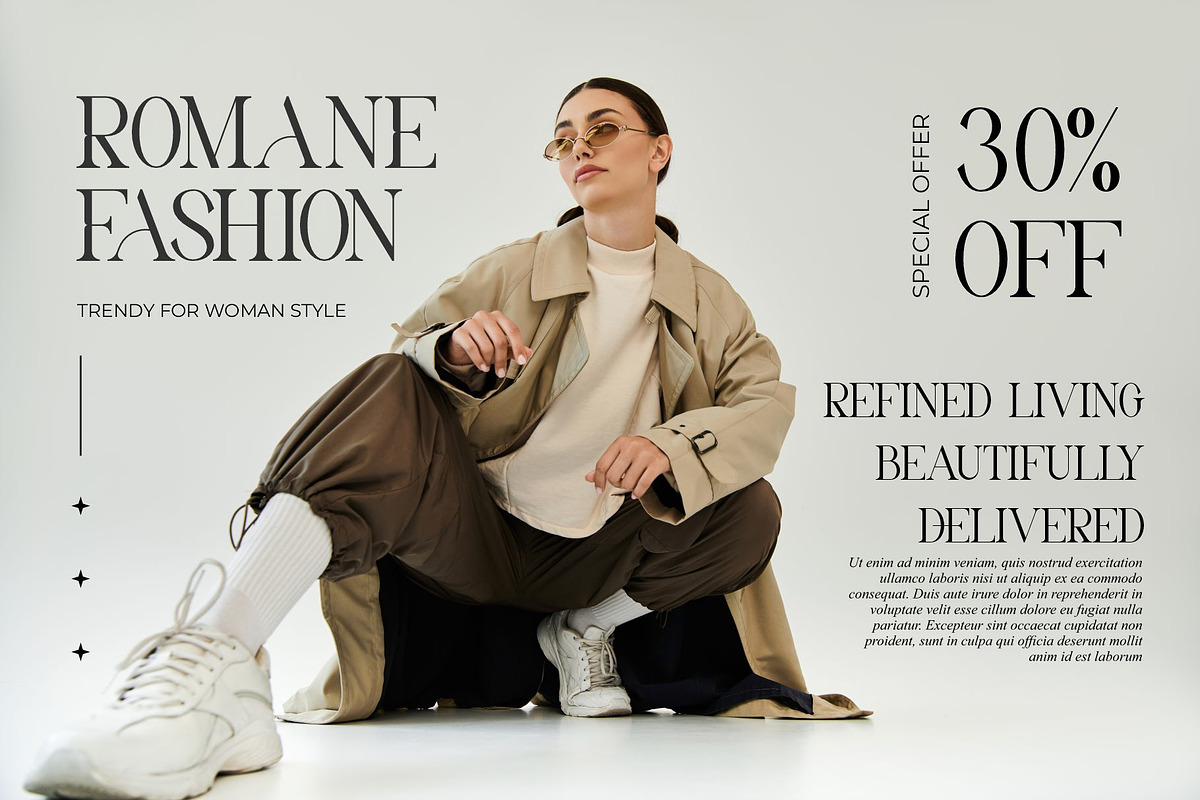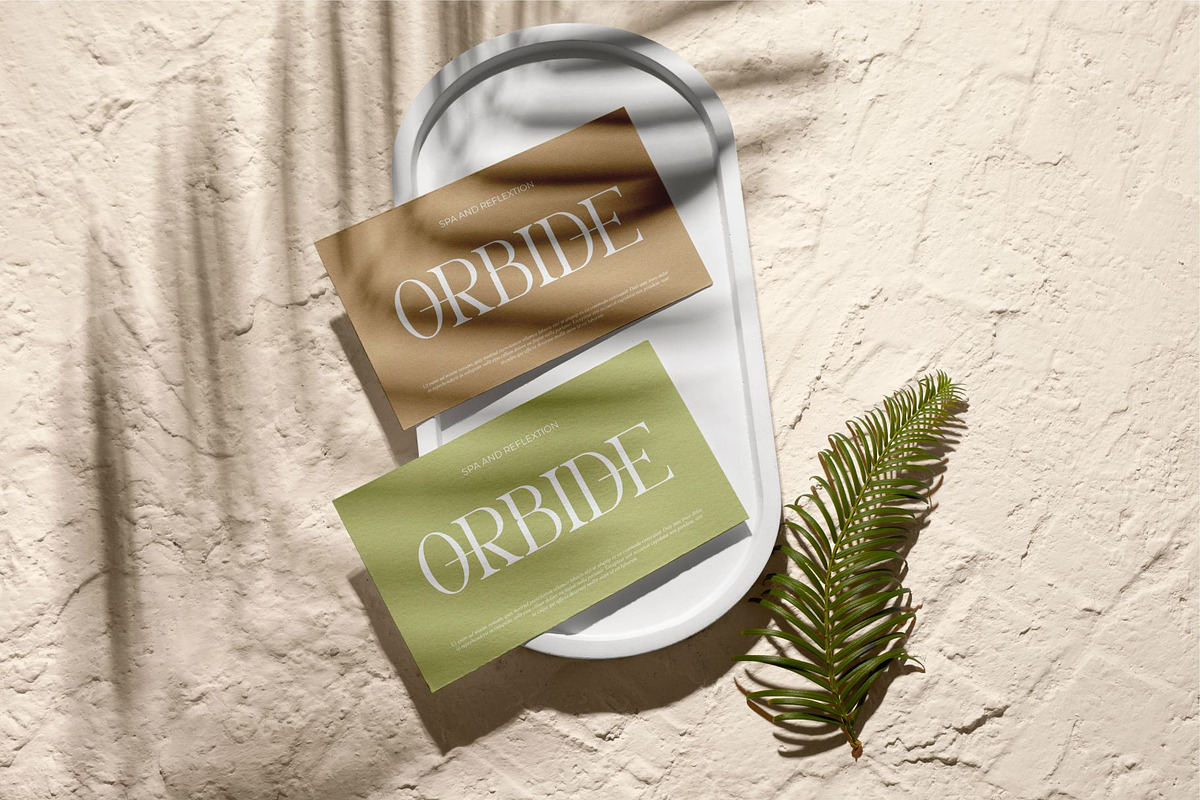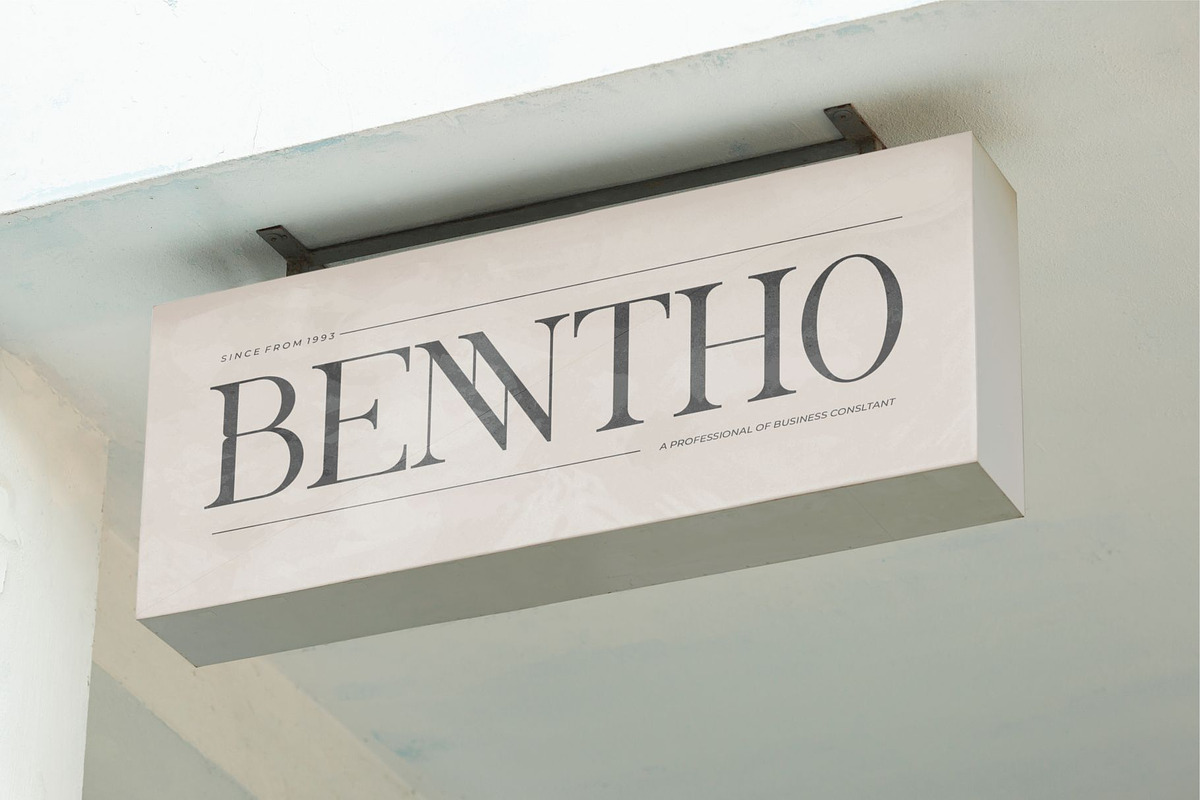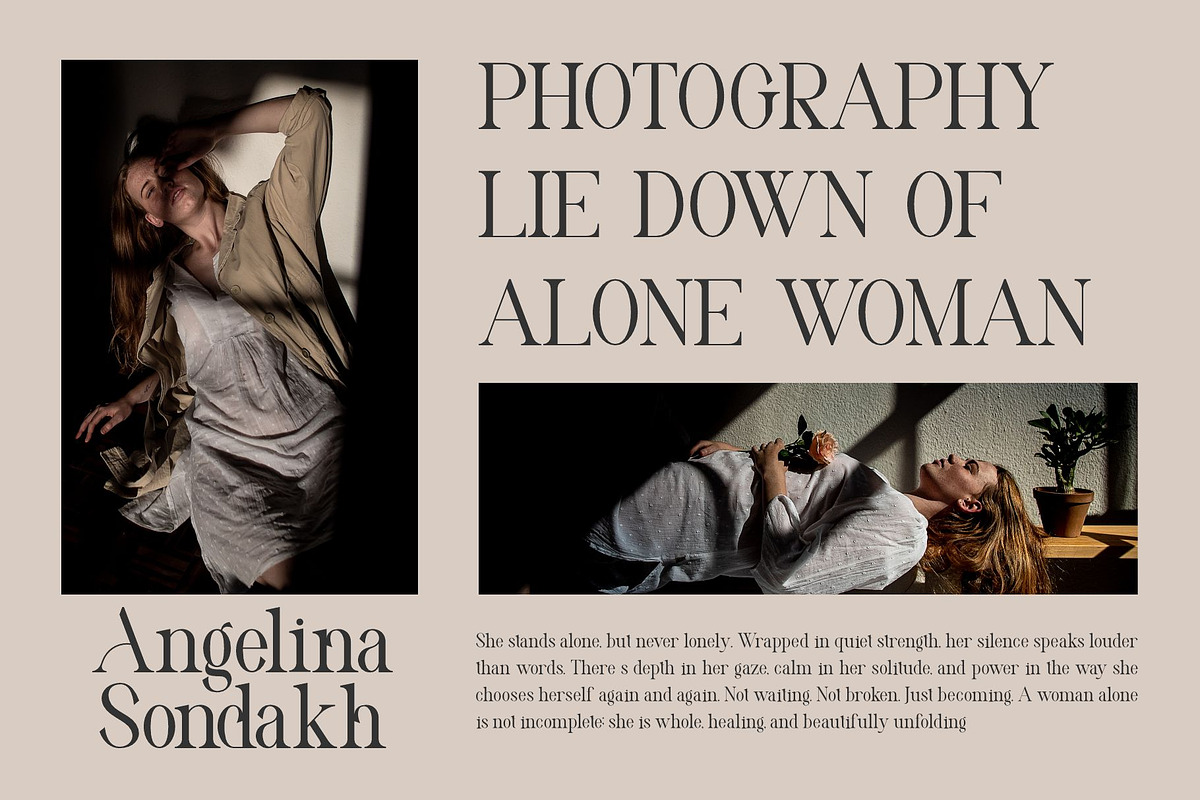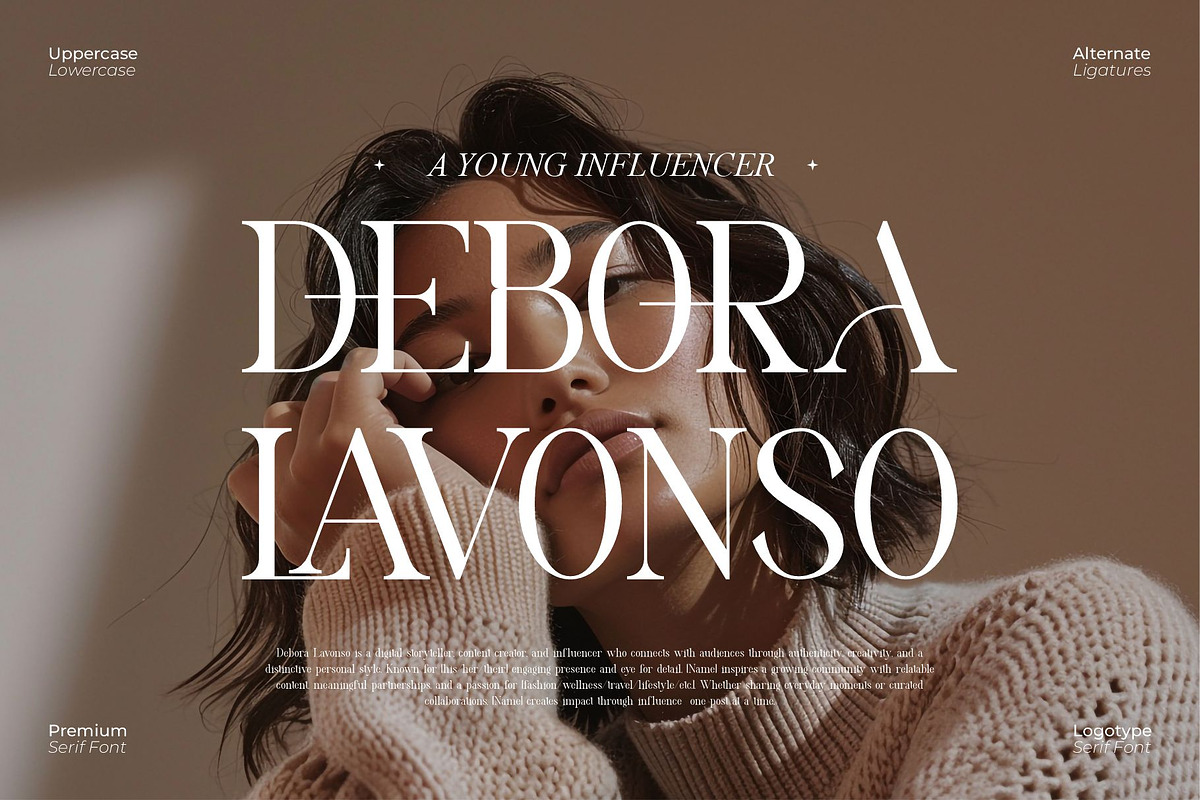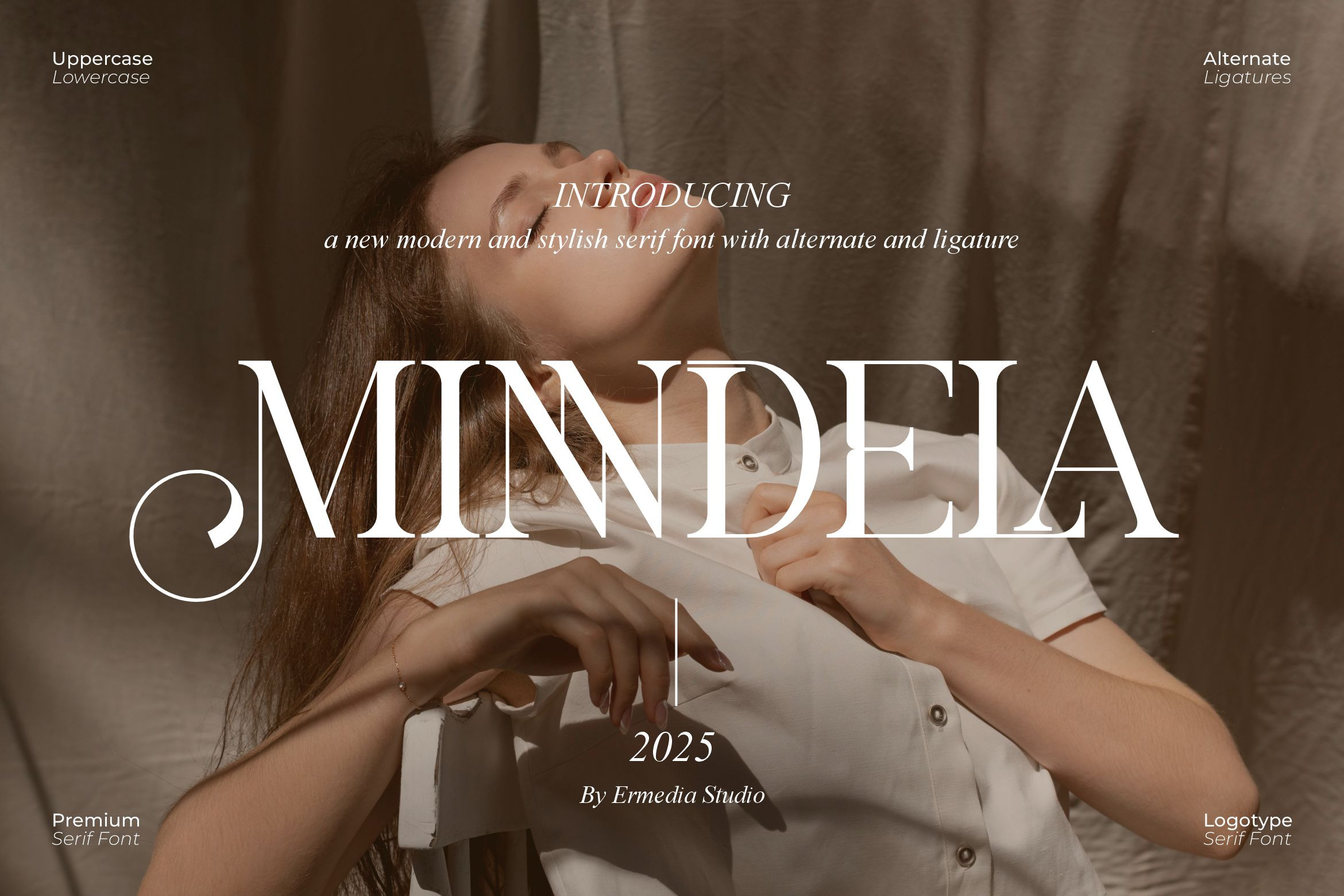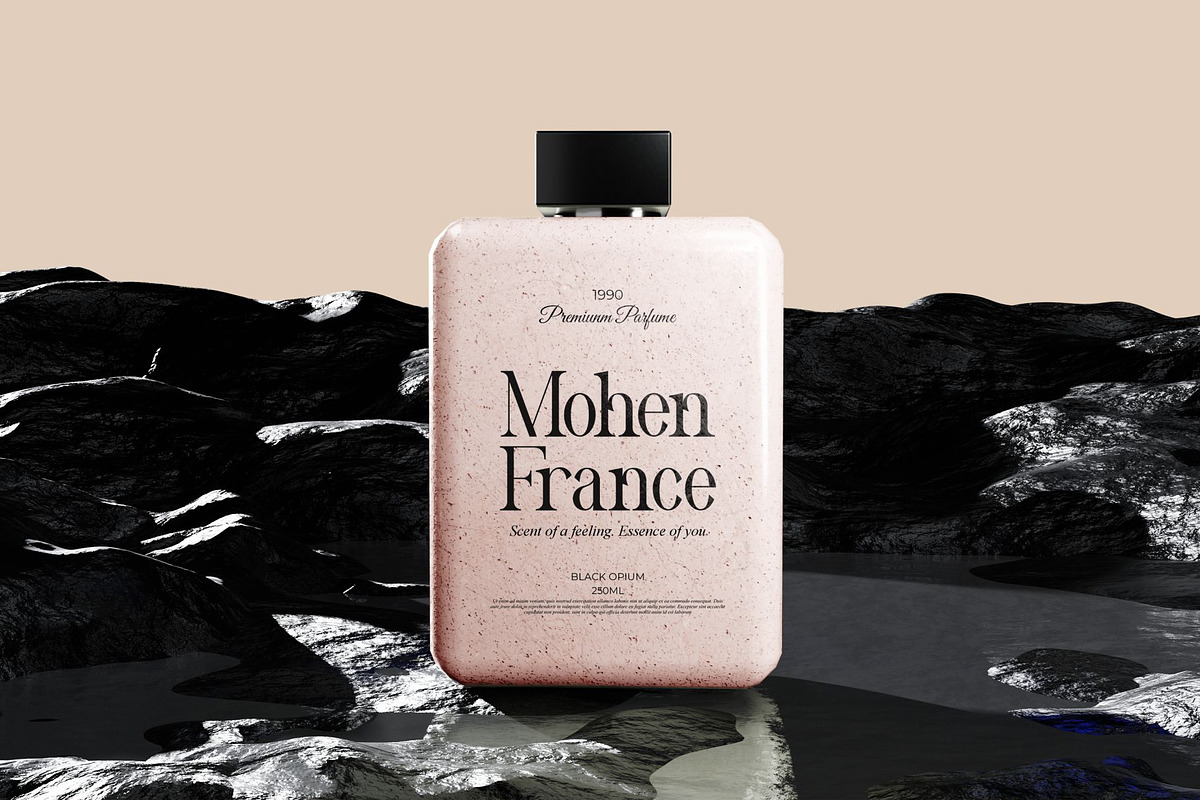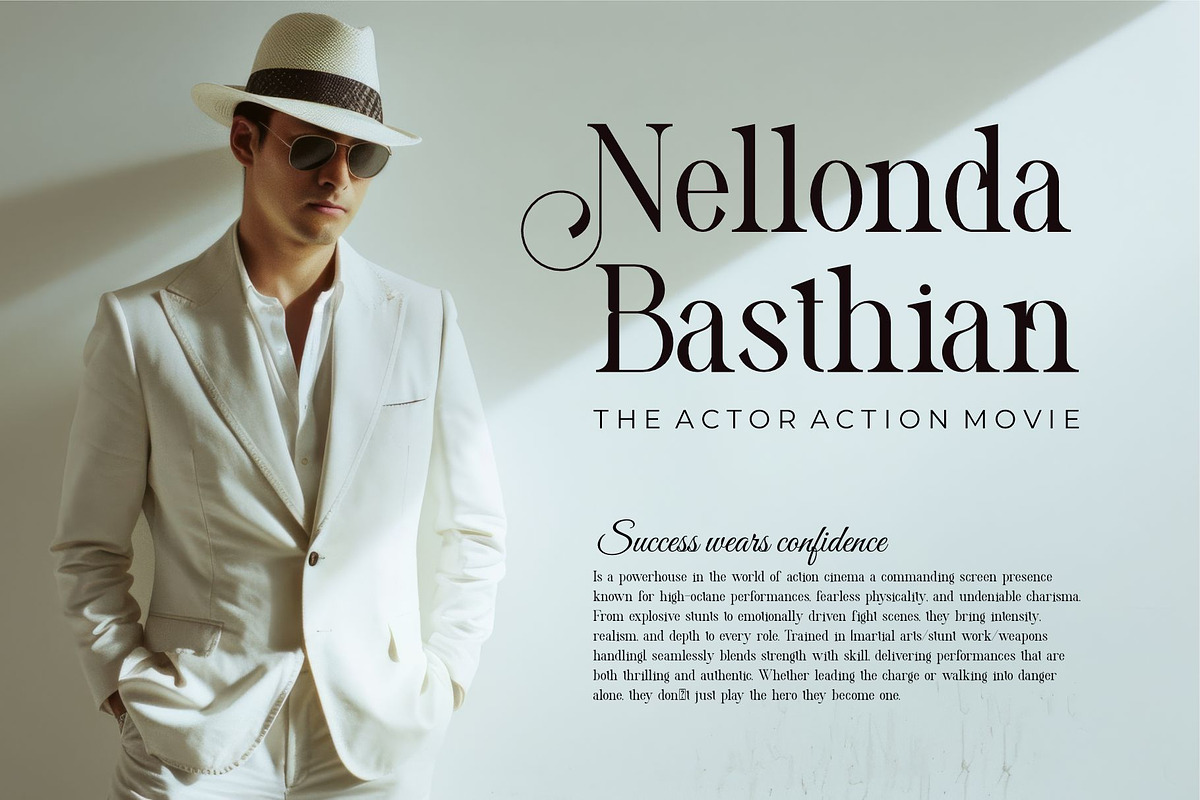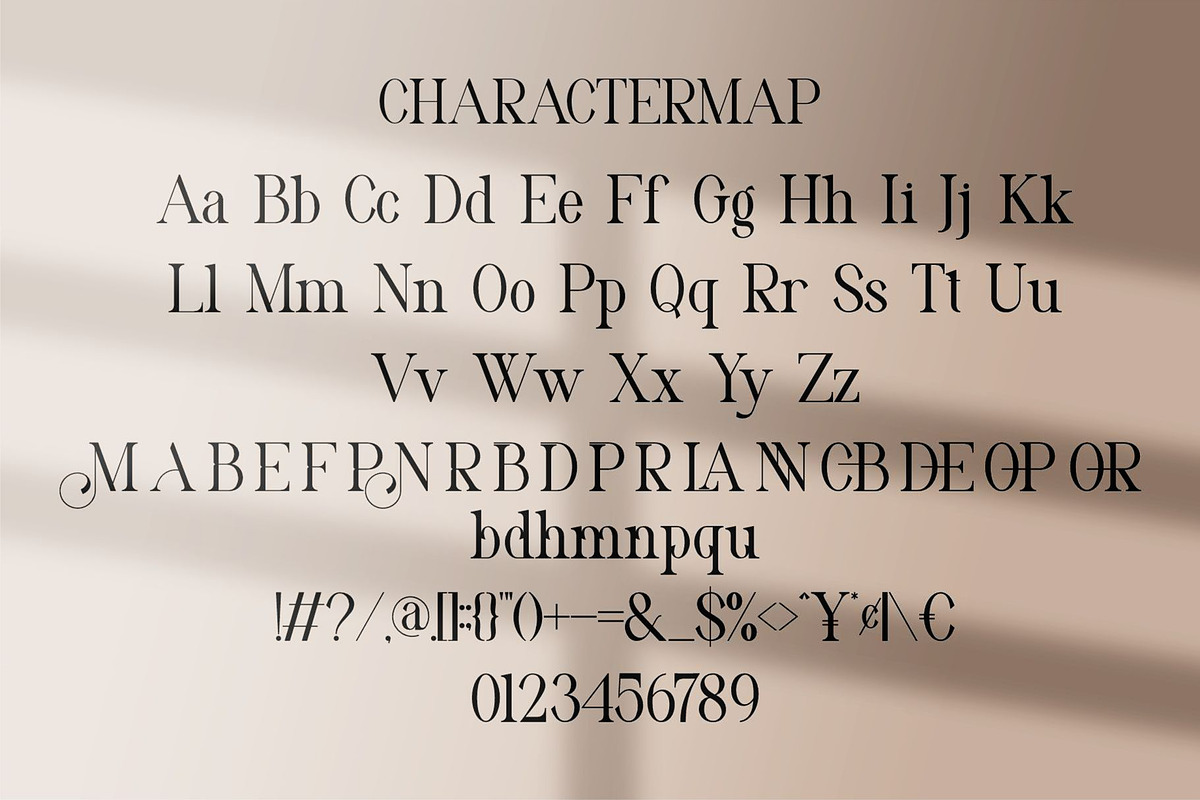
Minndela || Modern Serif Font
minndela Serif is a modern and classy font type for all branding and logo designs. This modern and classy Serif font has a beautiful character. This font is suitable for invitation card designs, cool logos, movie titles, movie names, business cards, book titles, brand names, and various other designs. minndela Serif is a smooth serif font that exudes sophistication and the moment. Its stylish ligatures make this font a perfect partner for any project.